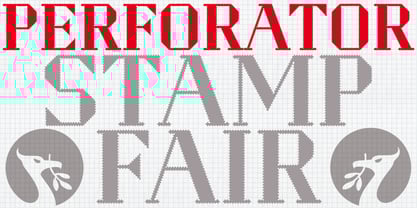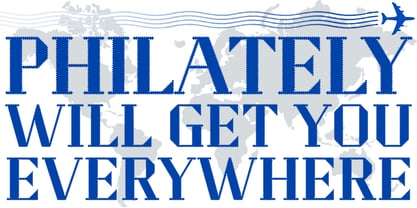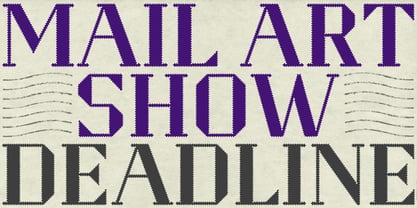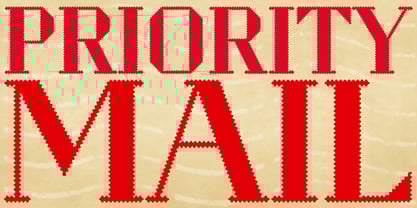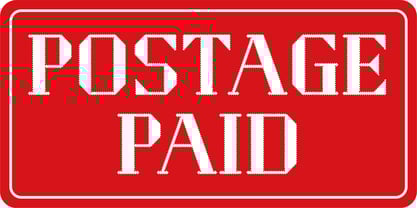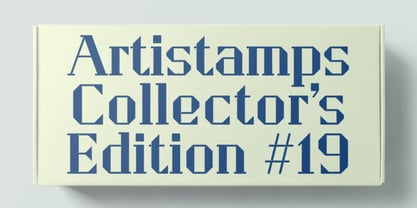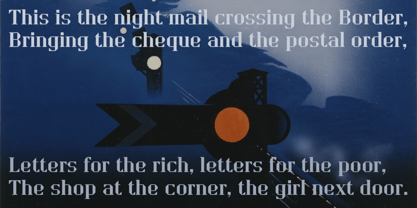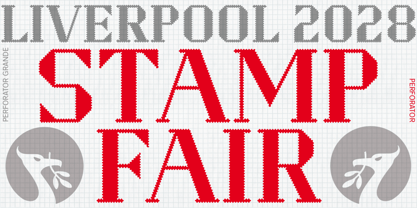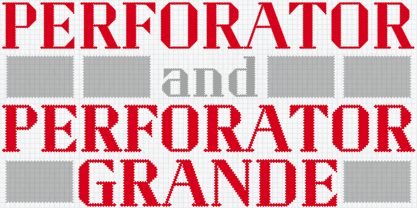
Perforator
by K-Type
Perforator is a display font based on K-Type's Straight Line typeface with edges that simulate stamp perforations. The font is designed for large-scale use in headings, titles, posters, banners and signage.
For post offices, mail systems, philatelists and stamp dealers, Perforator is the perfect visual signifier for any kind of 'stampiness'.
Perforator contains a full complement of Latin Extended-A characters.